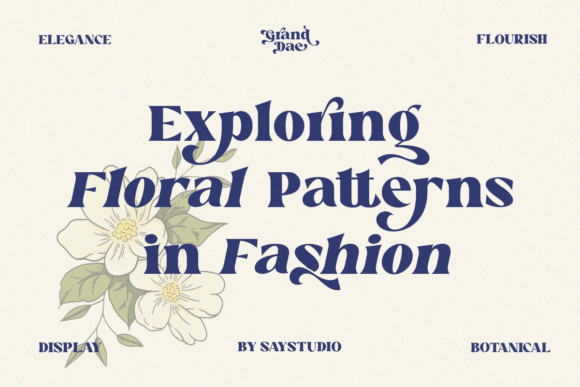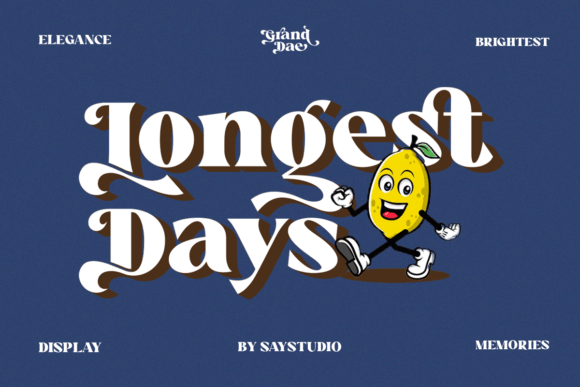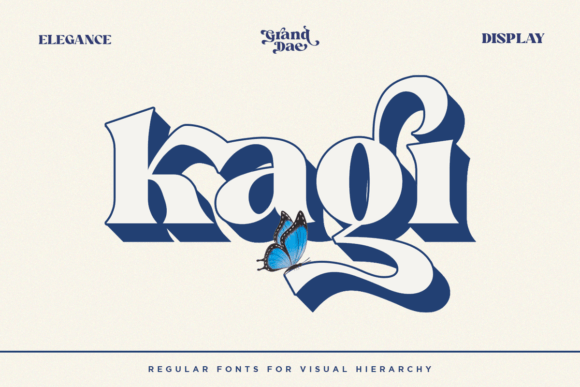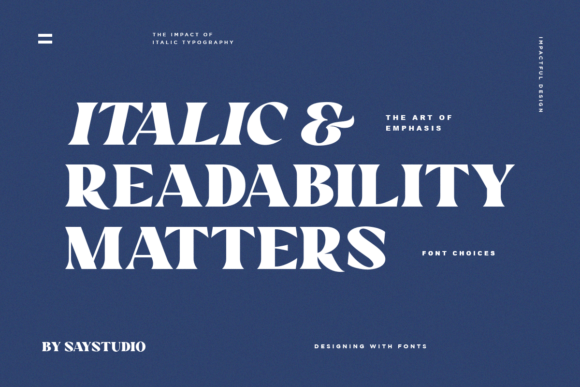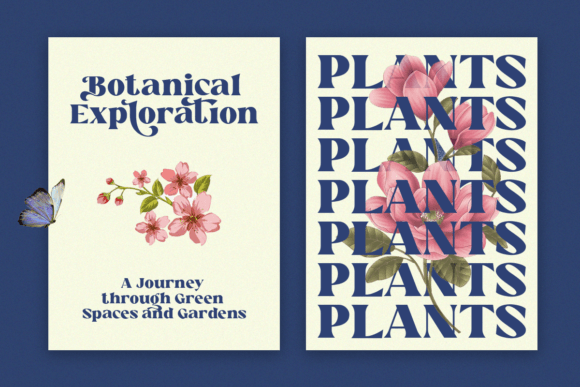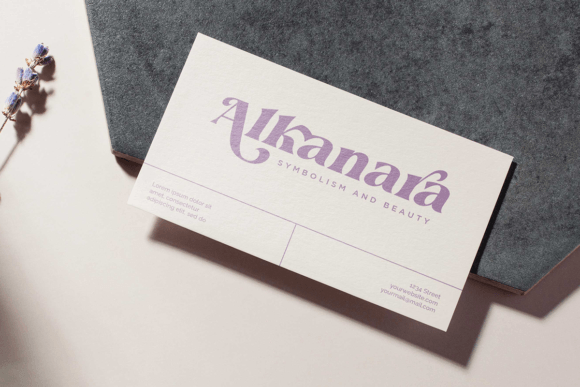
The Grand Entrance: Discovering the Power of Grand Dae Font
I’ll never forget the time I was working on a project for a client who needed a bold, eye-catching font to make their brand stand out. I had spent hours scouring the internet for the perfect font, but nothing seemed quite right. That was until I stumbled upon Grand Dae Font. This bold and assertive display font has been a game-changer for my design work, and I’m excited to share its capabilities with you.
So, what makes Grand Dae Font so special? Here are a few things I love:
• ✨ Bold and assertive: Grand Dae Font makes a statement, no matter what topic you’re working on.
• ✅ Versatile: This font can be used for a wide range of projects, from branding and advertising to packaging and more.
• 💥 Attention-grabbing: The unique design of Grand Dae Font is sure to turn heads and grab attention.
Of course, no font is perfect, and Grand Dae Font does have a few small quirks:
• 🤔 Limited use in body text: While Grand Dae Font is amazing for headlines and titles, it’s not the best choice for body text due to its bold nature.
• ⚠️ Some kerning issues: As with any font, there may be some kerning issues, especially when using certain character combinations.
The Story Behind Grand Dae Font
Grand Dae Font was designed with one goal in mind: to create a bold and assertive display font that would make a statement. The designer, inspired by modern typography and urban landscapes, crafted a font that is both unique and versatile. While the designer’s true identity remains a mystery, their passion for typography and design shines through in every detail of Grand Dae Font.
What type of projects is Grand Dae Font best suited for? Grand Dae Font is perfect for projects that require a bold and attention-grabbing font, such as branding, advertising, packaging, and more.
Can I use Grand Dae Font for body text? While Grand Dae Font can be used for body text, it’s not the best choice due to its bold nature. It’s better suited for headlines and titles.
Is Grand Dae Font available in different weights? Grand Dae Font is a display font, and as such, it’s designed to be bold and assertive. However, some versions may offer variations in weight or style.